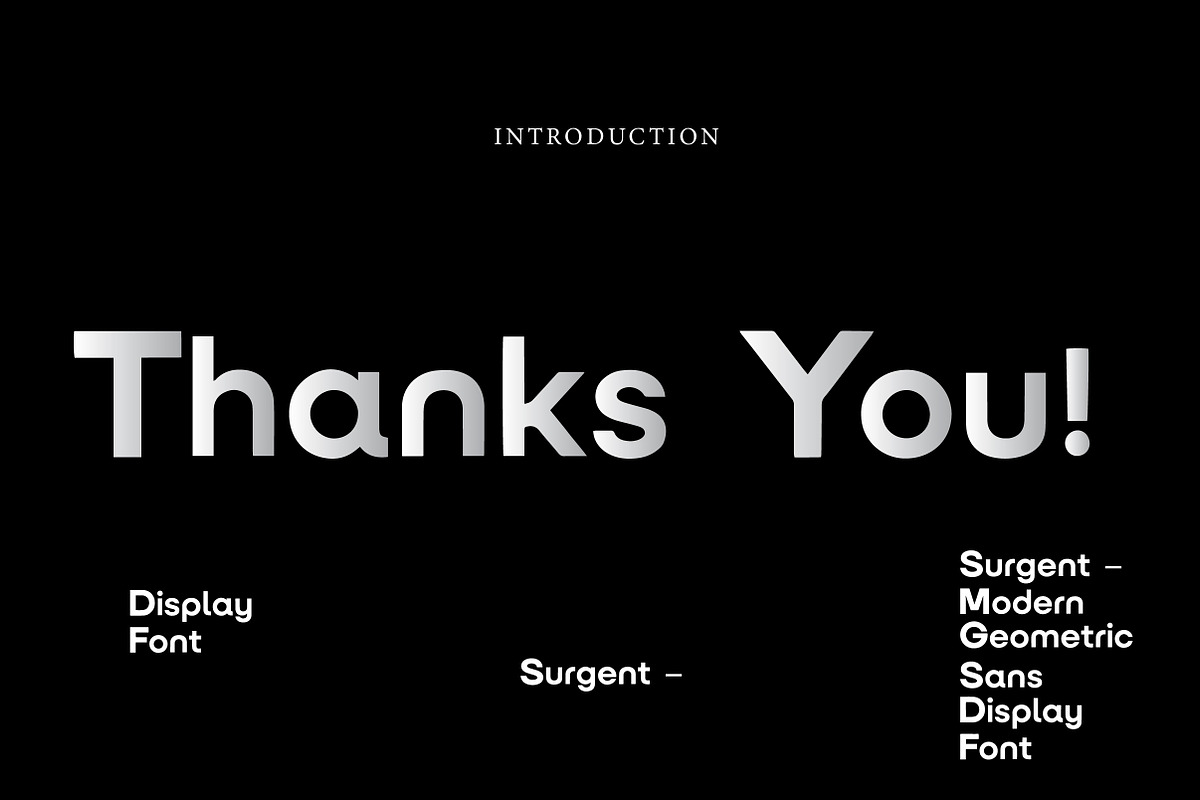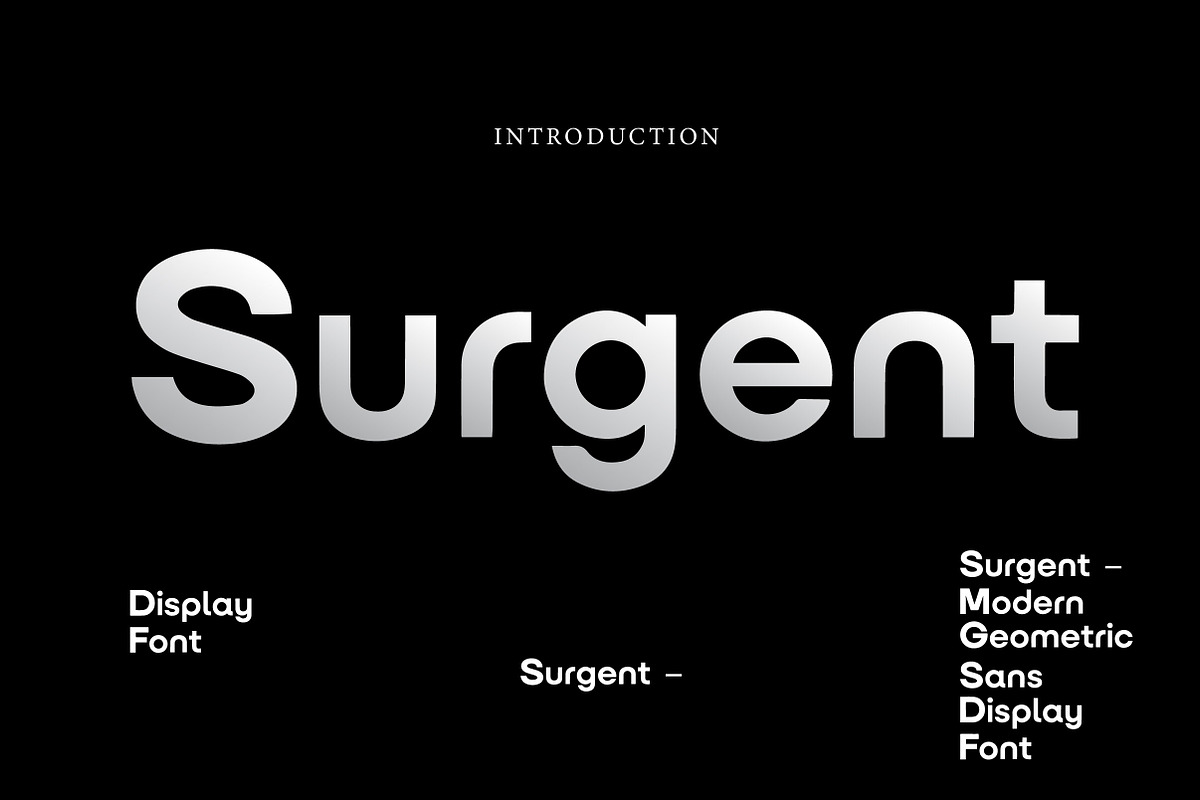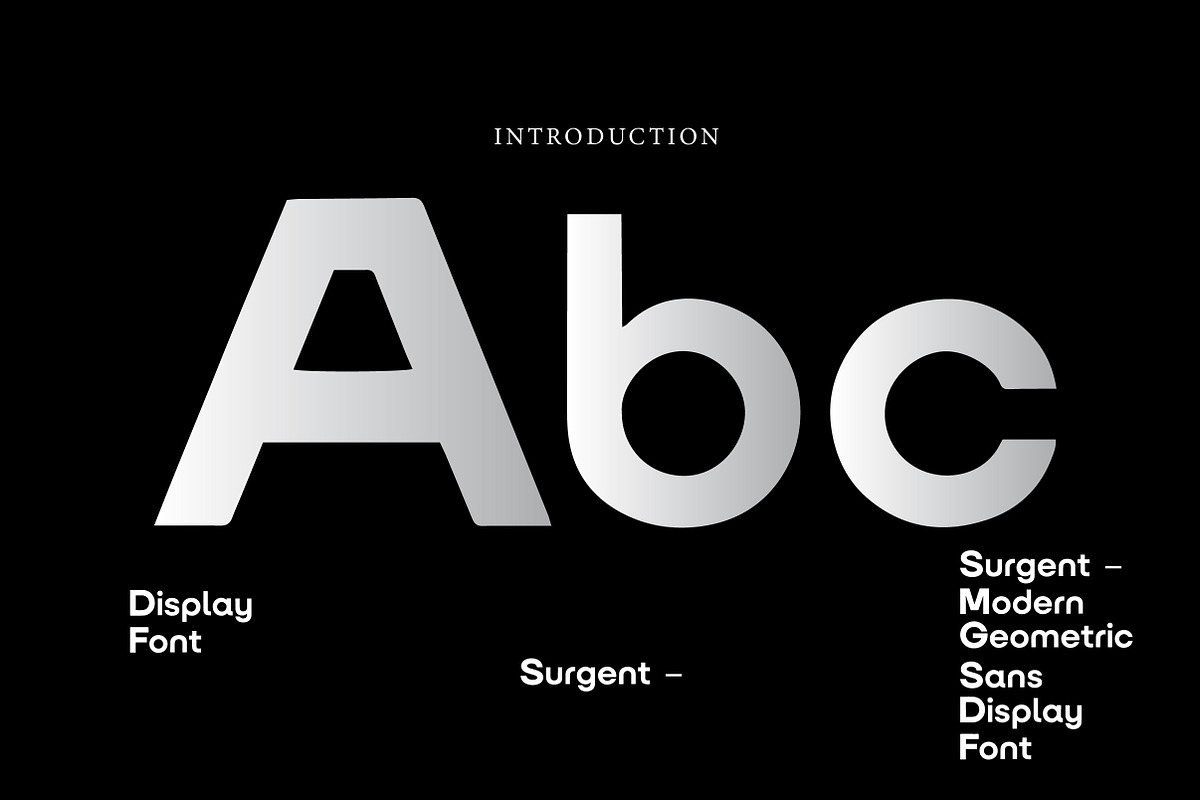
Surgent
Surgent – Modern Geometric Sans Display Font
Surgent is a bold, clean, and modern geometric sans display font, perfect for branding, logos, posters, tech designs, packaging, and contemporary creative projects.
Surgent is a modern geometric sans display font designed to deliver clarity, strength, and contemporary style. With its bold construction, rounded forms, and clean lines, this font creates a sleek and professional appearance that feels both minimal and impactful.
Its balanced letterforms make Surgent a versatile choice for projects that need a strong modern identity. Whether you are creating branding, logos, posters, packaging, website headers, social media graphics, or tech-inspired visuals, this font helps your typography stand out with confidence and precision.
The smooth geometric structure gives Surgent a futuristic yet highly readable look, making it ideal for both digital and print applications. It is a great choice for designers who want a typeface that feels bold, polished, and visually striking without losing simplicity.
Perfect For Modern branding Logo design Posters and headlines Tech and startup visuals Packaging design Website headers Social media graphics Editorial titles Advertising materials Clean display typography Font Features Uppercase letters Lowercase letters Numbers & punctuation Modern geometric sans style Bold and clean shapes Rounded contemporary look Perfect for display use